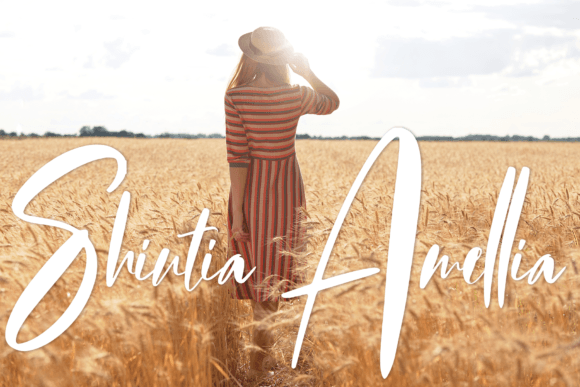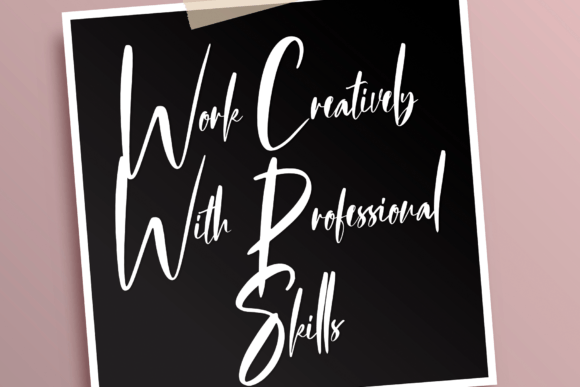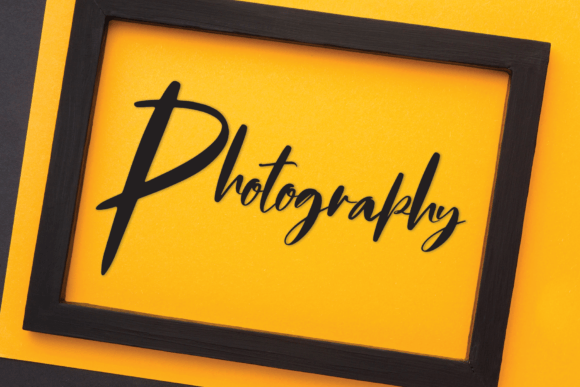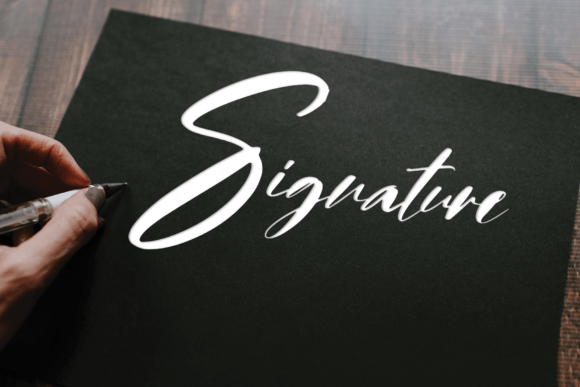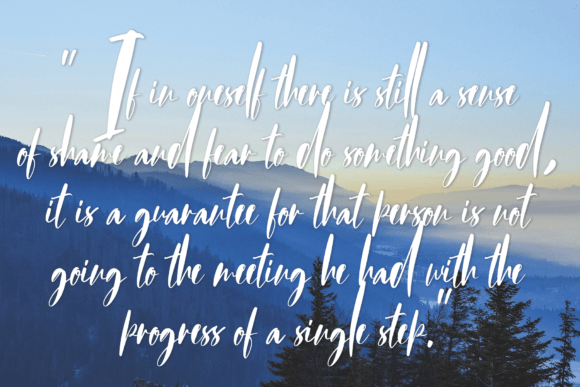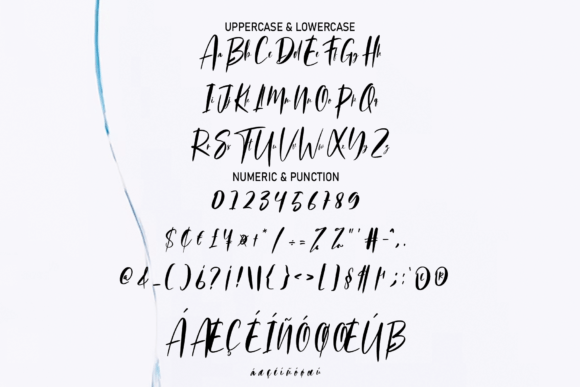
Introduction to Simple Inkdrop Font
Have you ever found yourself stuck in a creative rut, desperately searching for the perfect font to bring your design project to life? As a designer, you know how crucial it is to have a reliable design resource that can elevate your work and leave a lasting impression. That’s where the Simple Inkdrop Font comes in – a beautiful handwritten script font that’s sure to add a touch of elegance to your next creative project.
With its high-quality design and versatility, the Simple Inkdrop Font is a valuable addition to any designer’s toolkit. Whether you’re working on a logo, quote, cover, or invitation, this font is sure to impress. And the best part? It’s available for free download, complete with a transparent background, making it easy to integrate into your design.
So why settle for a generic font when you can add a personal touch to your work with the Simple Inkdrop Font? Grab this lovely typeface and get ready to take your designs to the next level.
Key Features of Simple Inkdrop Font
- High-quality, free design resource ideal for creative projects, offering a unique and elegant touch.
- Unique characteristic: The inkdrop design features a subtle, hand-painted look, giving your creative project a personal touch.
- Perfect for use in logos, branding materials, and other design elements where a simple, elegant font is desired.
Honest Review: Simple Inkdrop Font
I recently stumbled upon the Simple Inkdrop Font, a free download that caught my attention. As a designer, I’m always on the lookout for high-quality design resources to elevate my creative project. This font is a great addition to my toolkit.
- Clean and minimalist design aesthetic
- Perfect for creating a professional and modern look
The Simple Inkdrop Font is incredibly versatile and can be used in a variety of contexts, from logos and branding to digital products and marketing materials.
- Limited character set (only includes uppercase and lowercase letters)
- No support for non-English characters
Overall, the Simple Inkdrop Font is a solid choice for designers looking for a high-quality, free download. While it has some limitations, its clean design and versatility make it a valuable resource for any creative project.
The Simple Inkdrop Font is a high-quality, free download that can be used in various creative projects. With its unique design and transparent background, it offers endless possibilities for designers and artists.
Use the Simple Inkdrop Font in combination with other design elements to create a unique and eye-catching design.
The Simple Inkdrop Font is commonly used in:
- Brochure design
- Business card design
- Infographic design